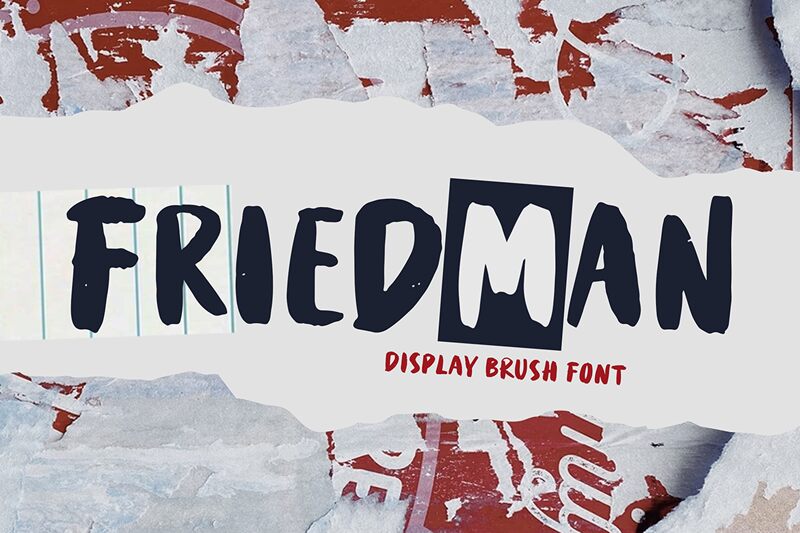
Friedman font by Weape Studio stands out with its bold, brush style, capturing an artistic and lively vibe. This free font's expressive strokes give it a dynamic and energetic feel. Its unique character makes it ideal for projects aiming for a personal touch-perfect for logo designs, branding materials, or eye-catching headlines.
The boldness of Friedman enhances its readability while maintaining an artistic flair. For those looking to make a statement with their typeface choice, this font is available for download, ready to elevate any design project with its distinctive and engaging aesthetic.
Friedman